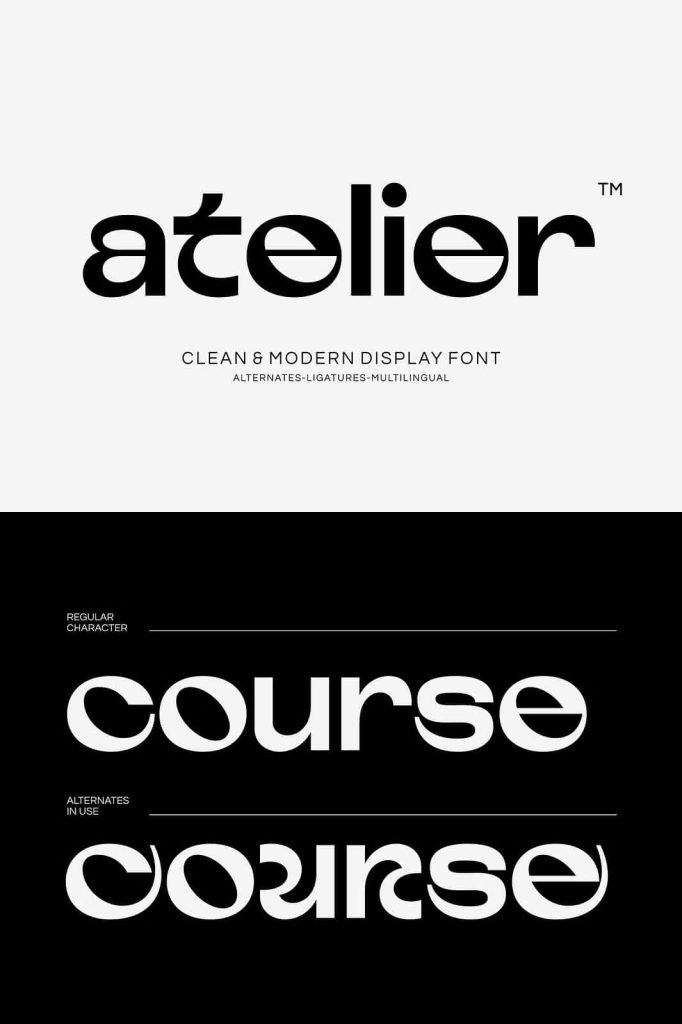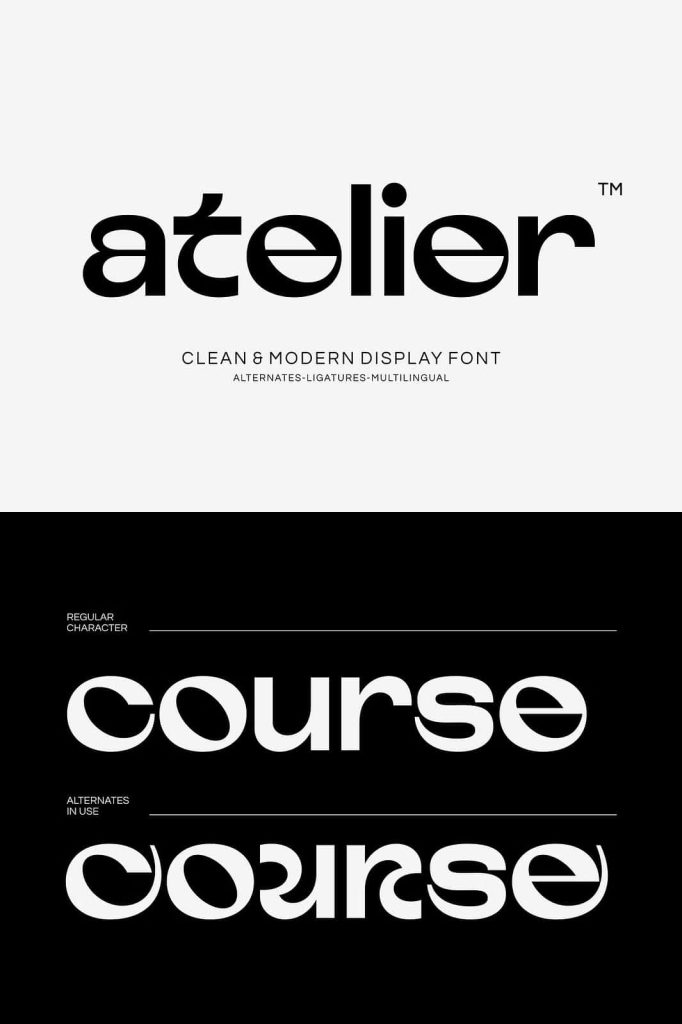
Atelier Modern Display Font: Precision Meets Fluid Expression
Atelier is a clean, modern display font that pushes the boundaries of contemporary typography. It combines rigid geometric structure with smooth, liquified organic forms to create a visually striking and highly expressive typeface. Designed for creators who demand more from their typography, Atelier transforms text into a powerful design element that drives brand identity and visual storytelling.
This font does not simply support a design—it leads it. Atelier allows typography to take center stage, making it an essential choice for designers who want their work to stand out with clarity and confidence.
The Concept Behind Atelier
Atelier builds on the contrast between structure and fluidity. On one side, it embraces geometric precision, delivering clean lines and balanced proportions. On the other, it introduces soft curves and flowing transitions that feel organic and dynamic. This duality creates a unique visual language that feels both controlled and expressive.
The design reflects the evolving nature of modern branding, where flexibility and personality play a crucial role. Atelier responds to this need by offering a typeface that adapts to different creative directions while maintaining a strong and recognizable identity.
Key Design Features
Geometric Foundation
Atelier relies on a structured geometric base that ensures clarity and consistency. The letterforms follow precise construction principles, resulting in a clean and modern appearance. This foundation makes the font highly legible and visually balanced.
Organic Fluidity
What sets Atelier apart is its fluid character. Subtle curves and softened edges introduce movement into the design, creating a sense of flow that contrasts beautifully with its geometric roots. This feature adds depth and personality to the typeface.
Strong Visual Presence
Atelier commands attention with its bold and confident shapes. It works especially well in large sizes, where its unique details and contrasting elements can fully shine. This makes it ideal for display purposes and impactful headlines.
Contemporary Aesthetic
The font reflects current design trends while maintaining a timeless quality. Its clean yet expressive style allows it to remain relevant across various creative industries.
Best Use Cases for Atelier
Atelier excels in projects where typography plays a central role in communication. Its distinctive style makes it particularly effective for:
- Brand identities that require a bold and modern visual language
- Logos and wordmarks that need to stand out with clarity and style
- Posters and promotional materials with strong visual impact
- Digital designs, including websites and social media graphics
Designers often use Atelier as a headline or display font, pairing it with simpler typefaces to create contrast and balance. This approach allows the font to shine without overwhelming the overall composition.
Why Choose Atelier?
Atelier offers a unique blend of structure and expression that few typefaces achieve. It gives designers the ability to create work that feels both precise and dynamic. This balance makes it an excellent choice for projects that require both professionalism and creativity.
In branding, this versatility becomes especially valuable. Atelier can adapt to different tones, from minimal and refined to bold and experimental, while maintaining a consistent visual identity.
Atelier is more than a modern display font—it is a design tool that empowers creators to shape strong and memorable visual identities. By combining geometric precision with organic fluidity, it delivers a typeface that feels both structured and alive. For designers who want their typography to lead the conversation, Atelier provides a compelling and versatile solution.